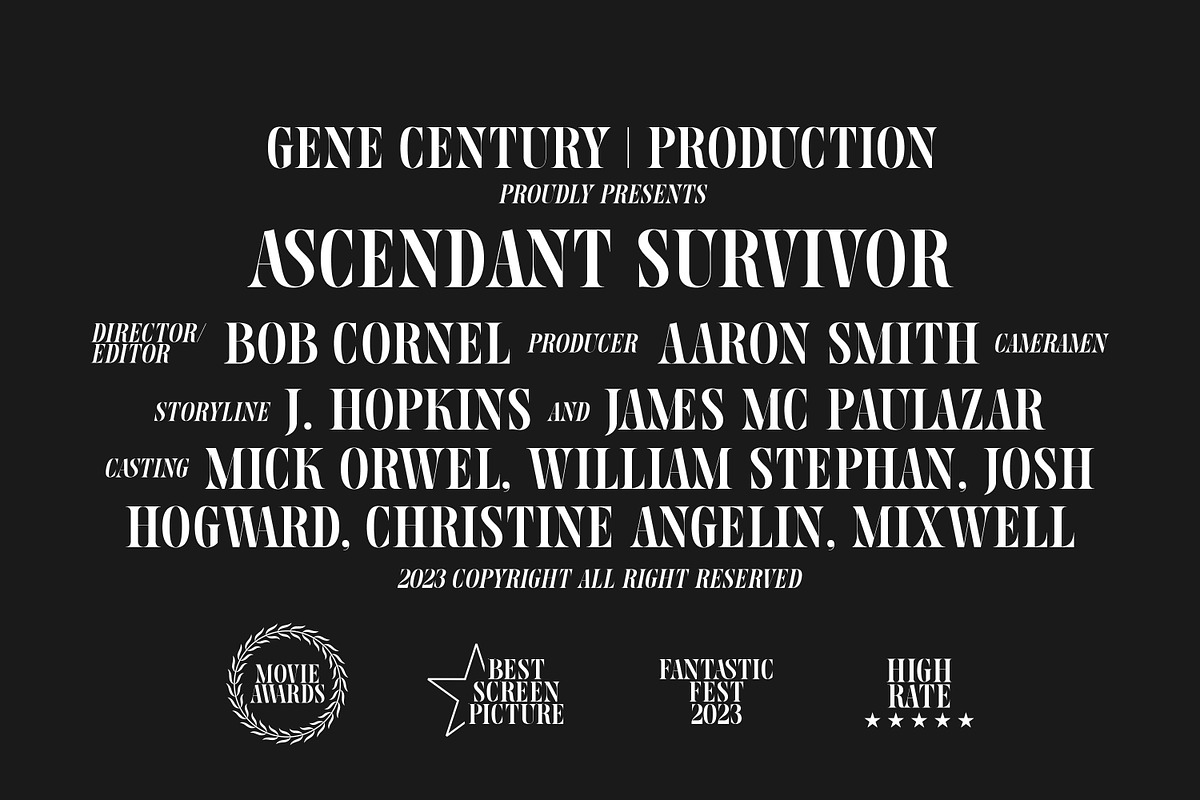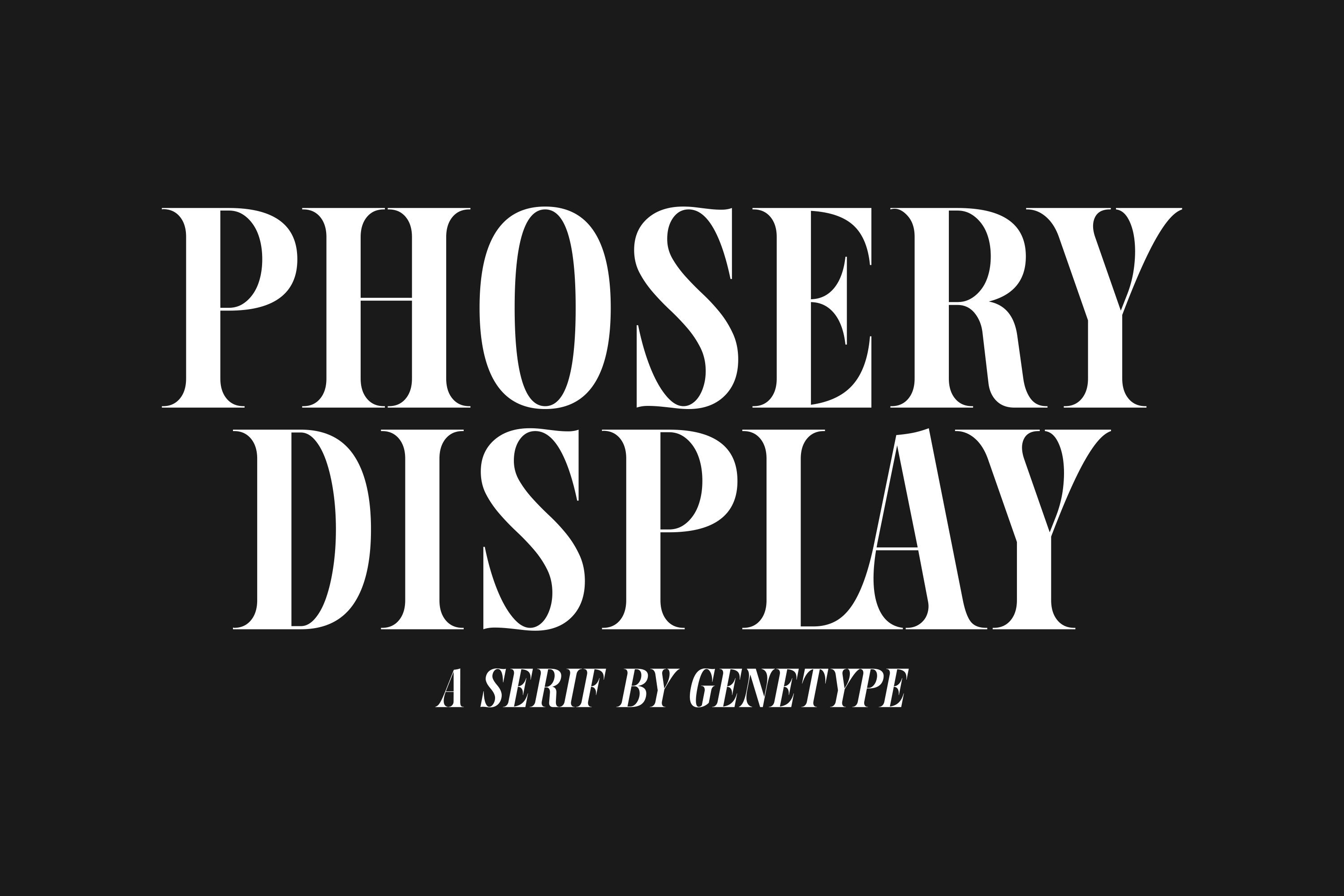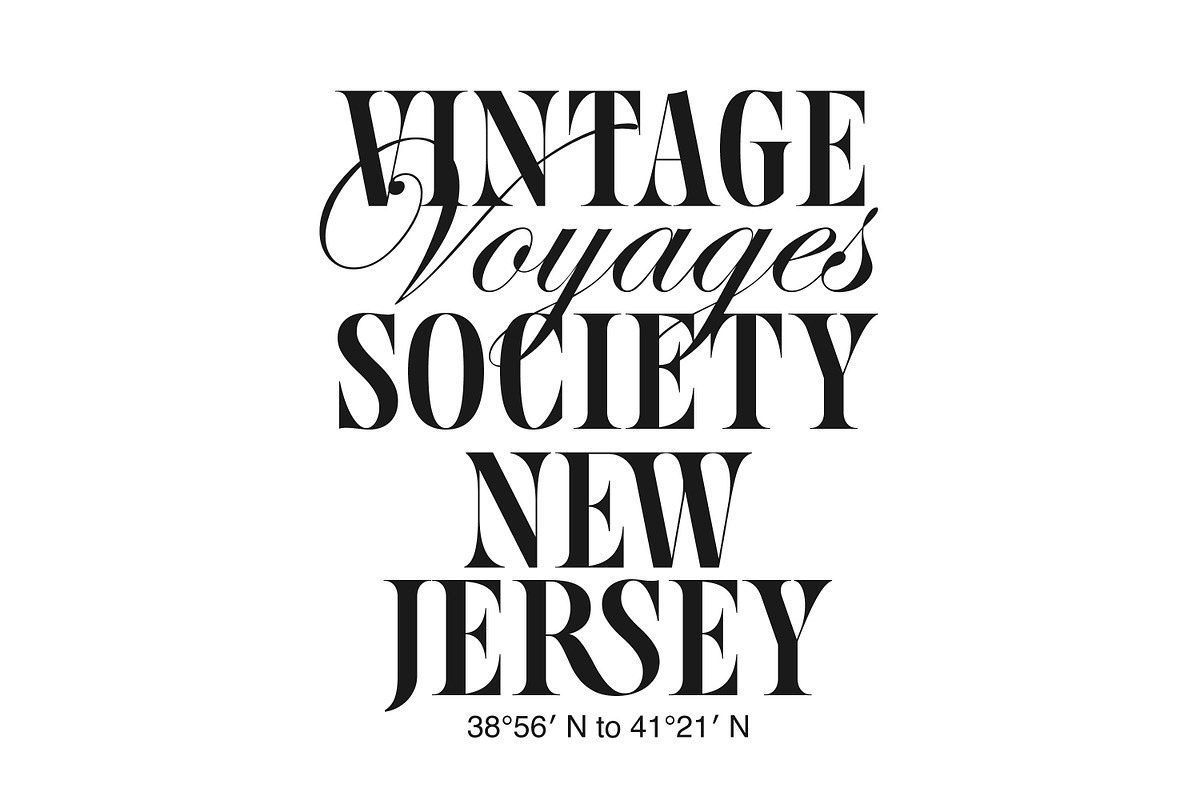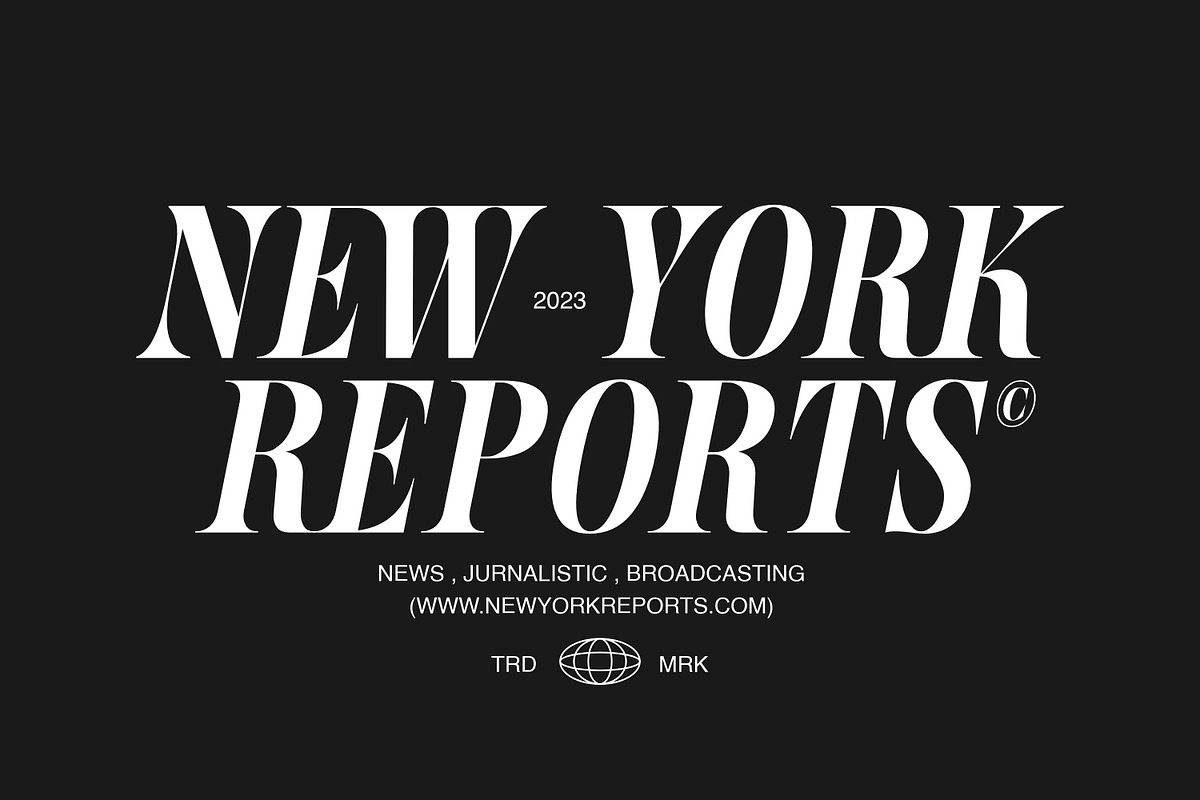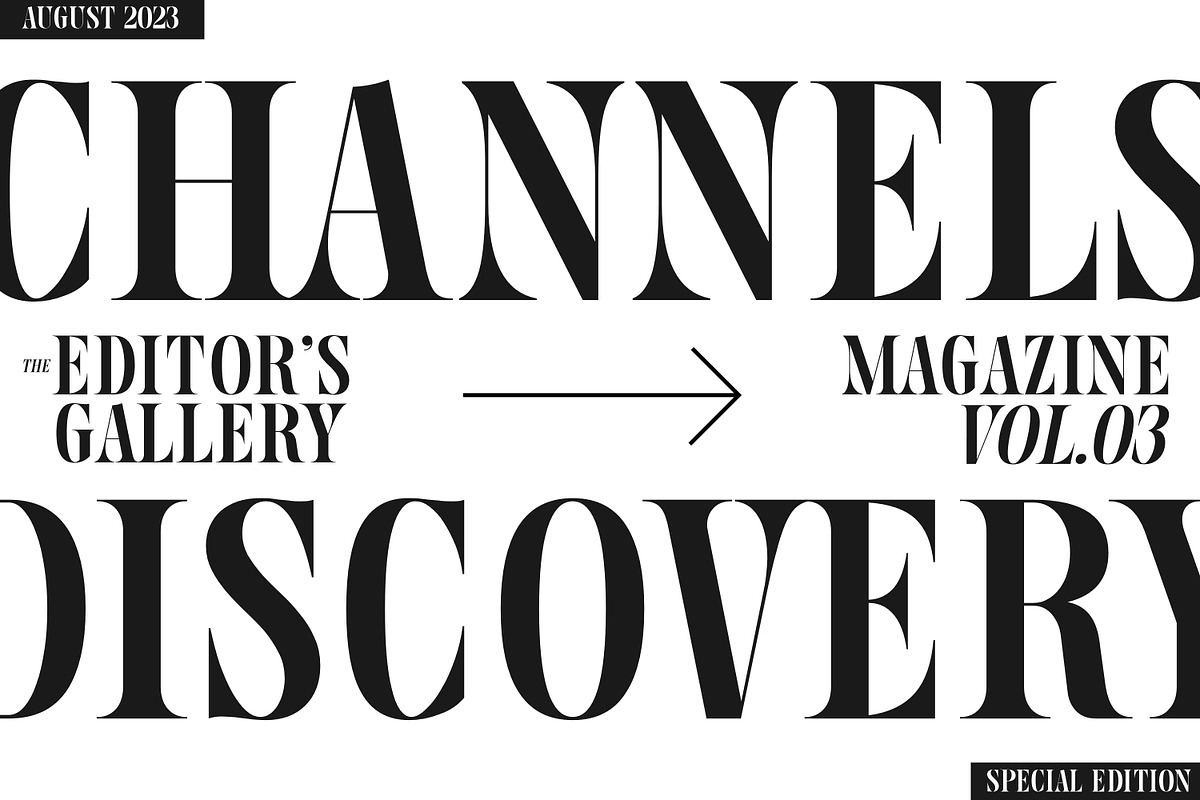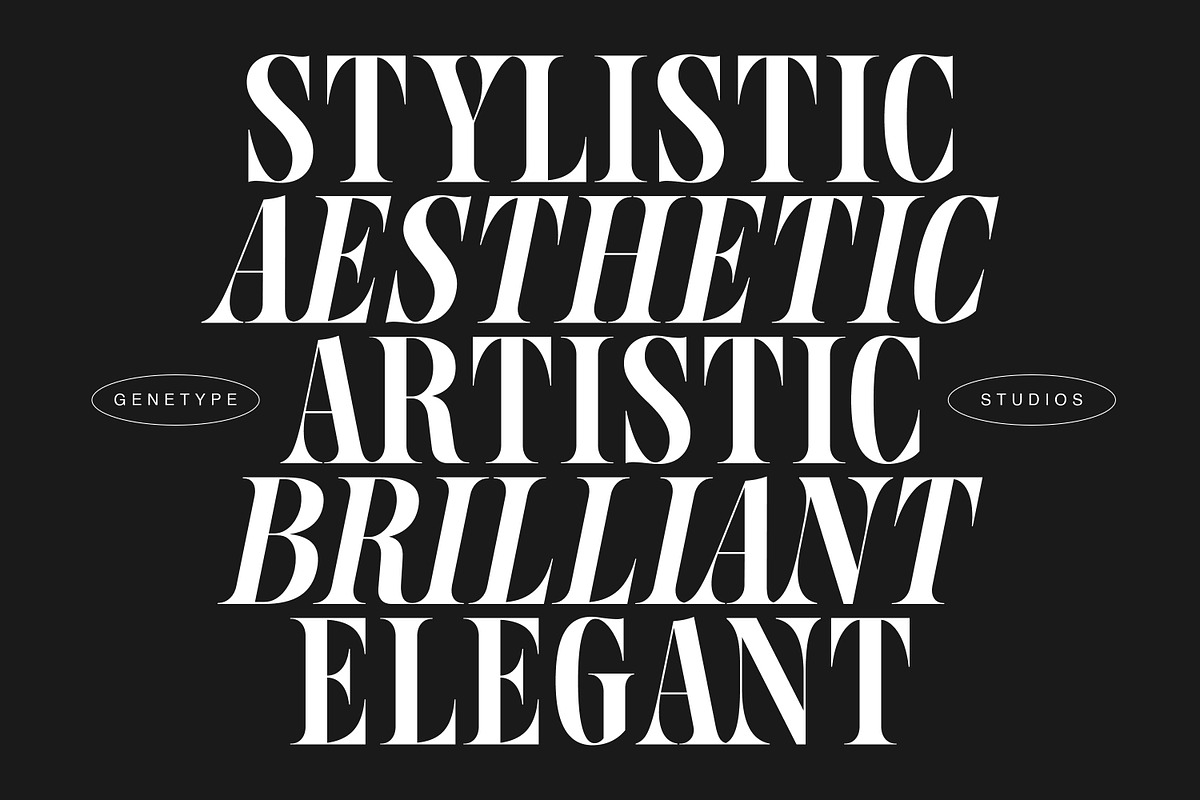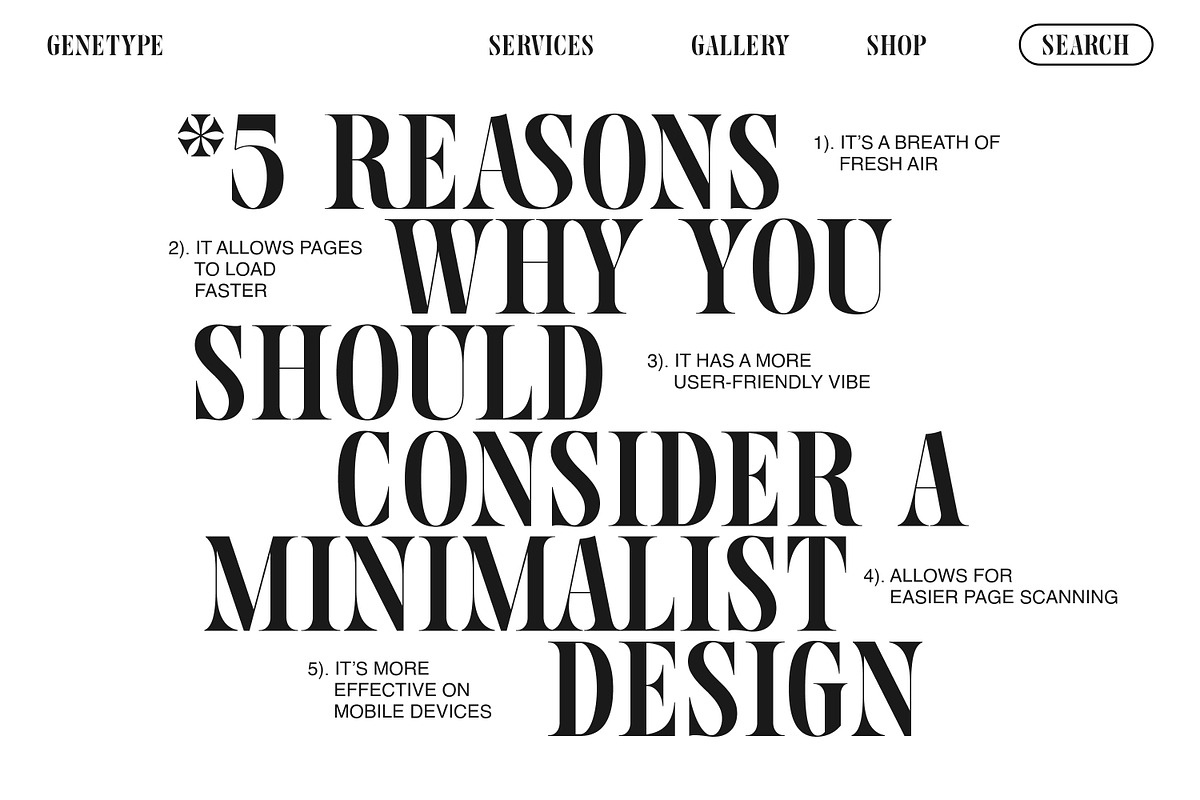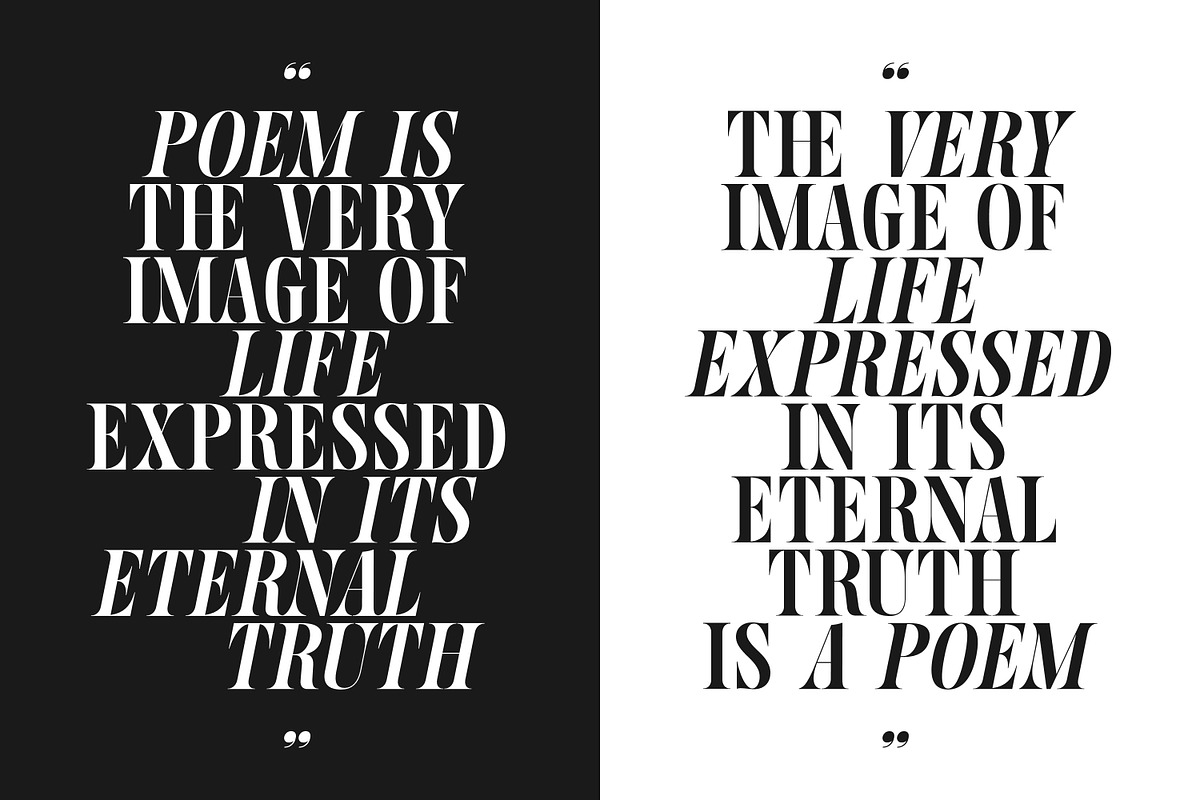
Phosery Serif Display Font
Introducing Phosery Display Serif Typeface: Elevate Elegance to New Heights Evoke a sense of regal charm with Phosery Display Serif – a font that embodies luxury and grace in every serif. Crafted for the most sophisticated projects, from upscale branding to premium stationery, Phosery Display Serif adds an aura of elegance to your designs. Illuminate your creativity with a touch of grandeur – experience Phosery Display Serif and reignite the art of luxury typography.